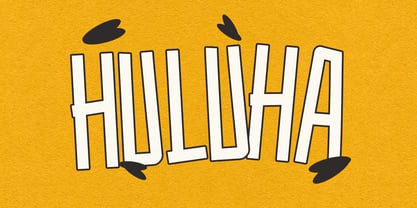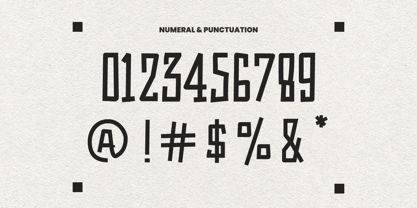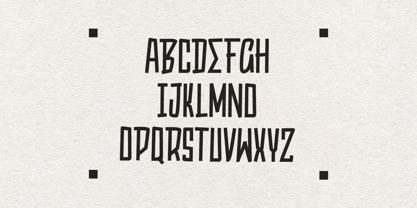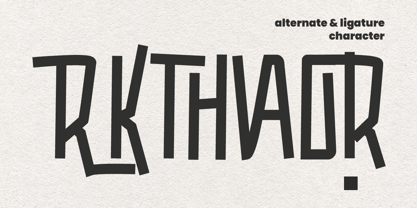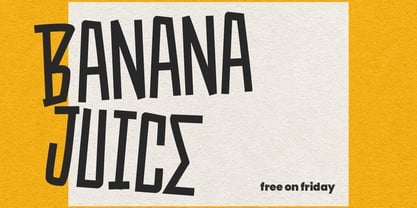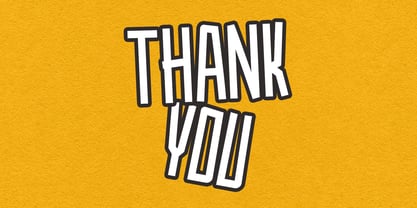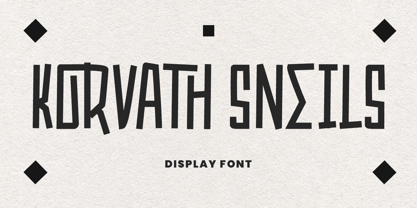
MC Korvath Sneils
by Maulana Creative
The MC Korvath Sneils Font Family was designed by Gilang Maulana and published by Maulana Creative. MC Korvath Sneils contains 1 styles. More about this family
Korvath Sneils is a fancy display style font. With fun character with a bit of alternate and ligature. To give you an extra creative work. Korvath Sneils font support multilingual more than 100+ language. This font is good for logo design, Social media, Movie Titles, Books Titles, a short text even a long text letter and good for your secondary text font with sans or serif. Make a stunning work with Korvath Sneils.
Designers: Gilang Maulana
Foundry: Maulana Creative